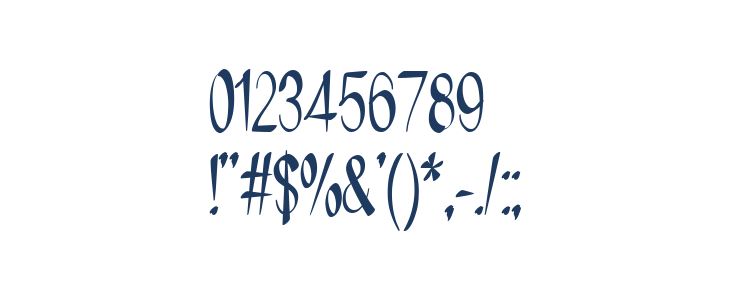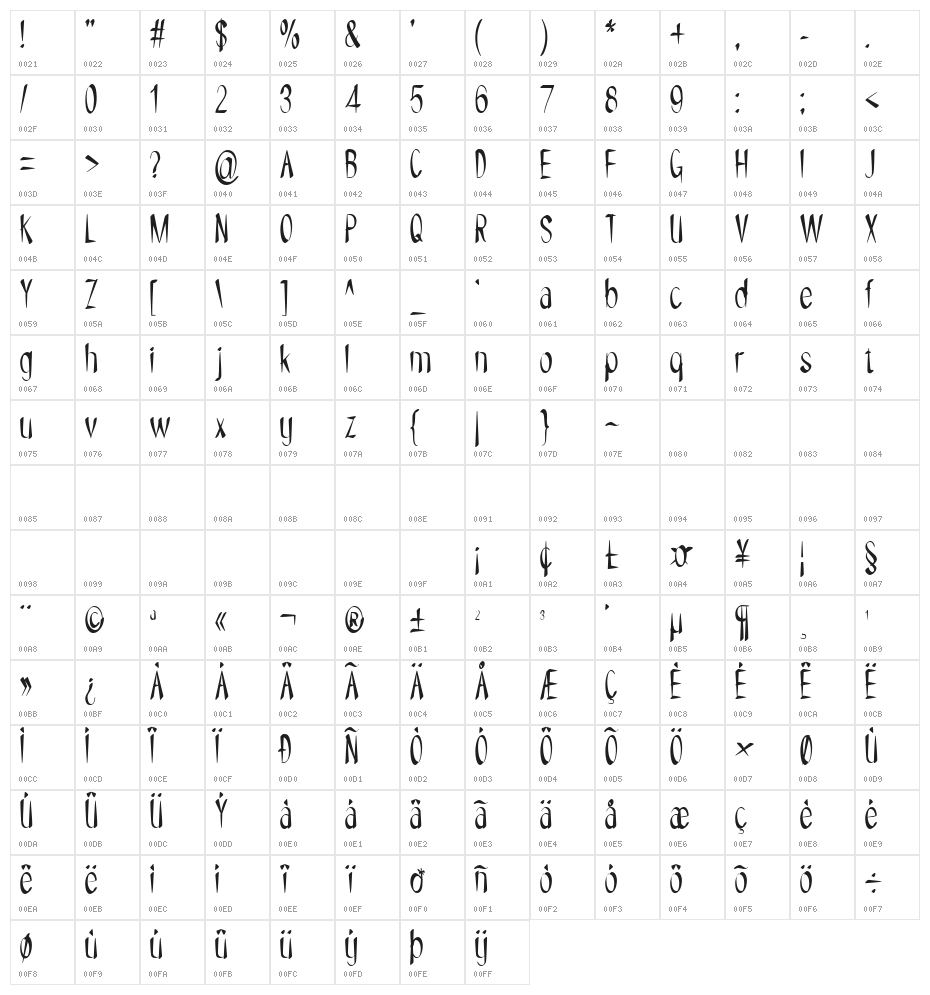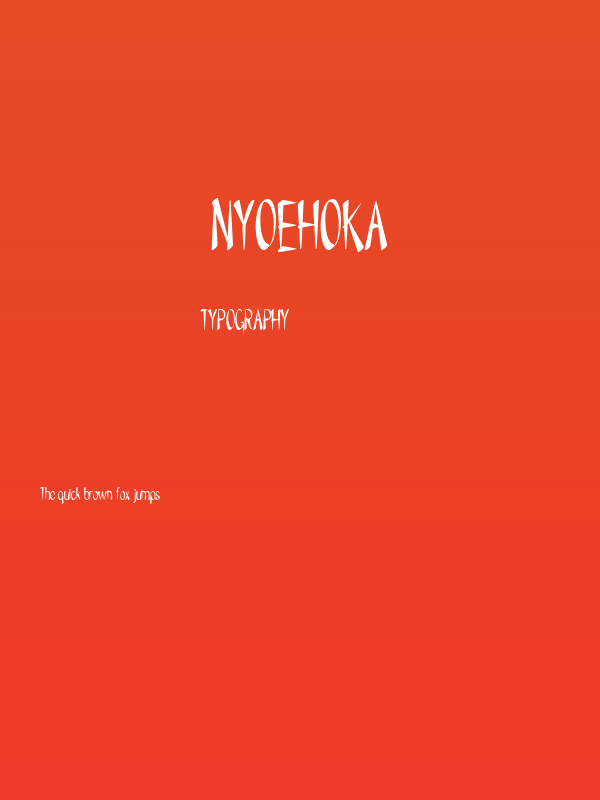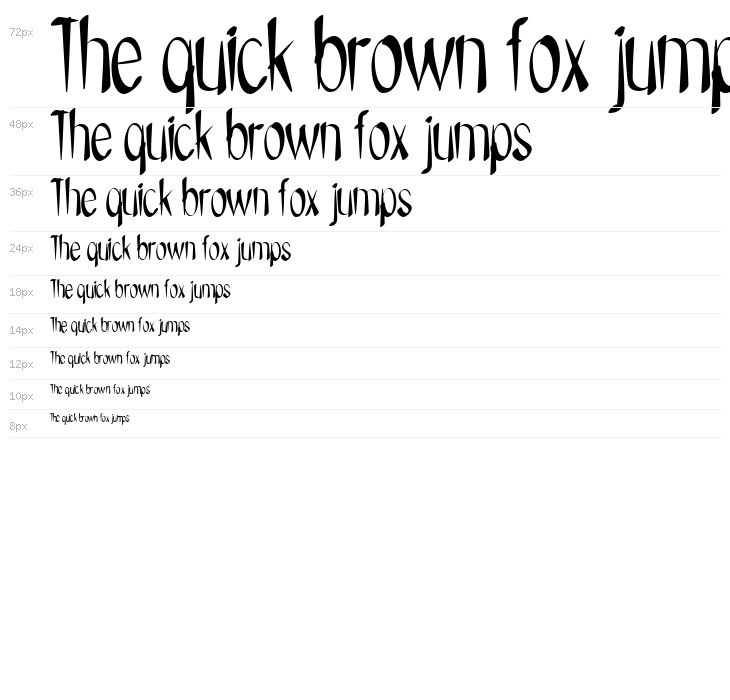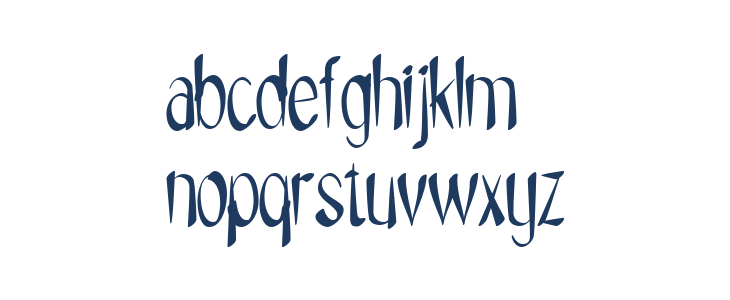
NYOEHOKA Font
NYOEHOKA Description
This font features a unique and artistic style with elongated and slightly irregular letterforms, giving it a hand-drawn appearance. The uppercase letters are tall and narrow, while the lowercase letters maintain a consistent height with a playful twist. The numbers are bold and easily readable, complementing the overall design. The special characters are creatively styled, adding to the font's distinctive look. This font is ideal for projects that require a touch of creativity and individuality.
Overall StyleArtistic, Hand-drawn
Use CaseHeadlines, Posters, Branding
Proposed ProjectsIdeal for artistic posters, creative branding, unique invitations, and eye-catching headlines.